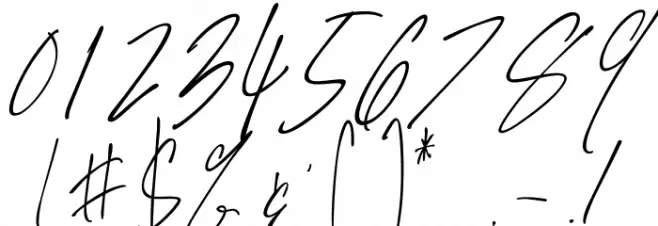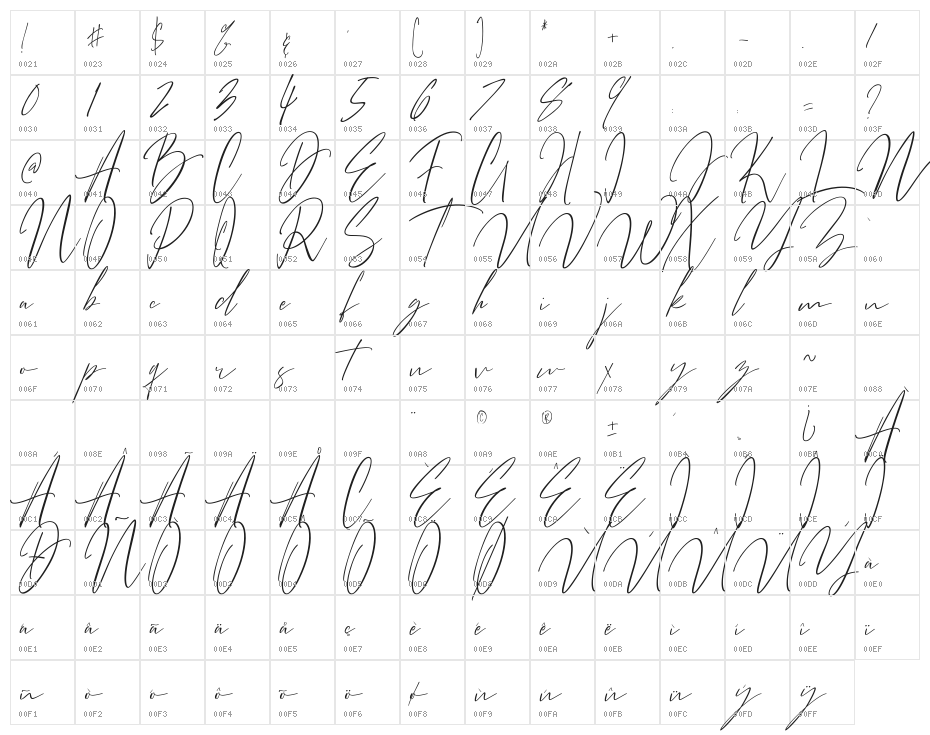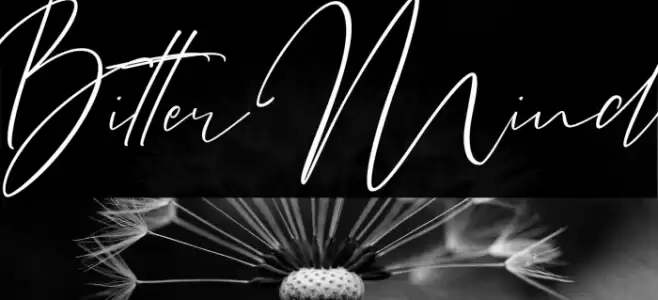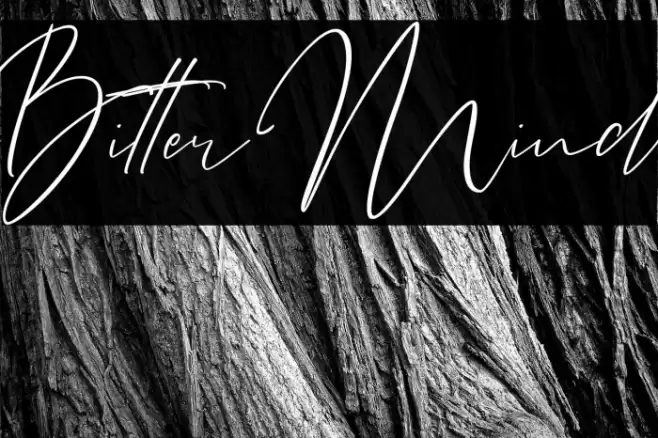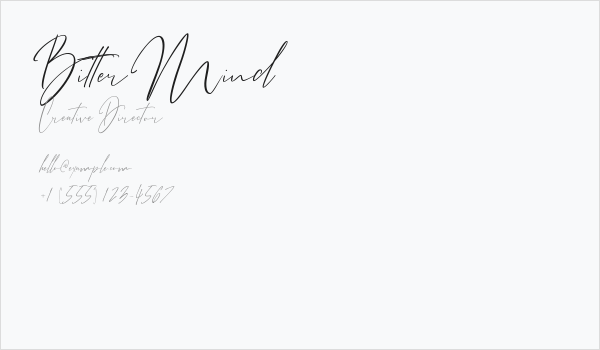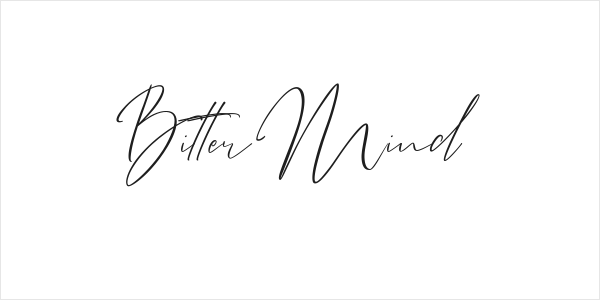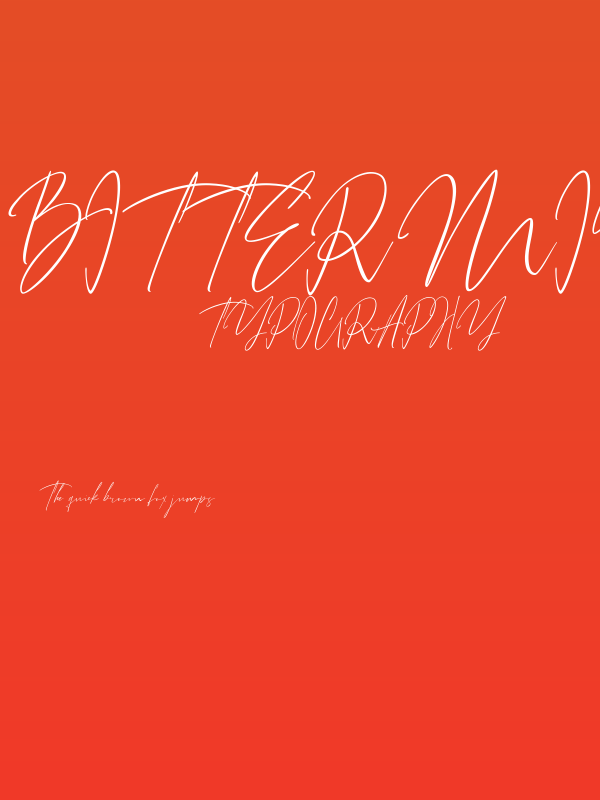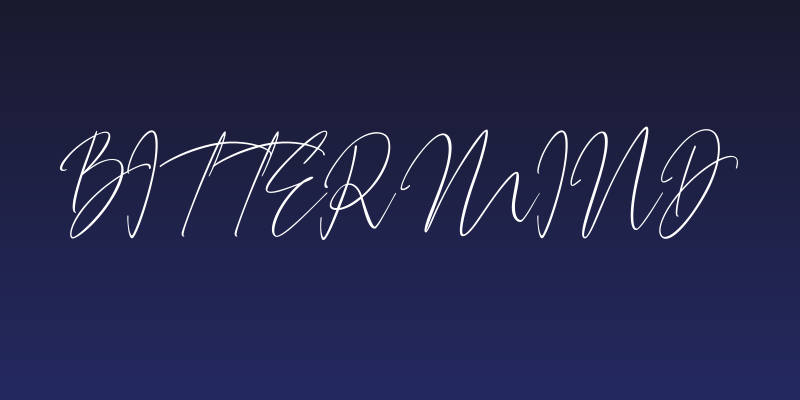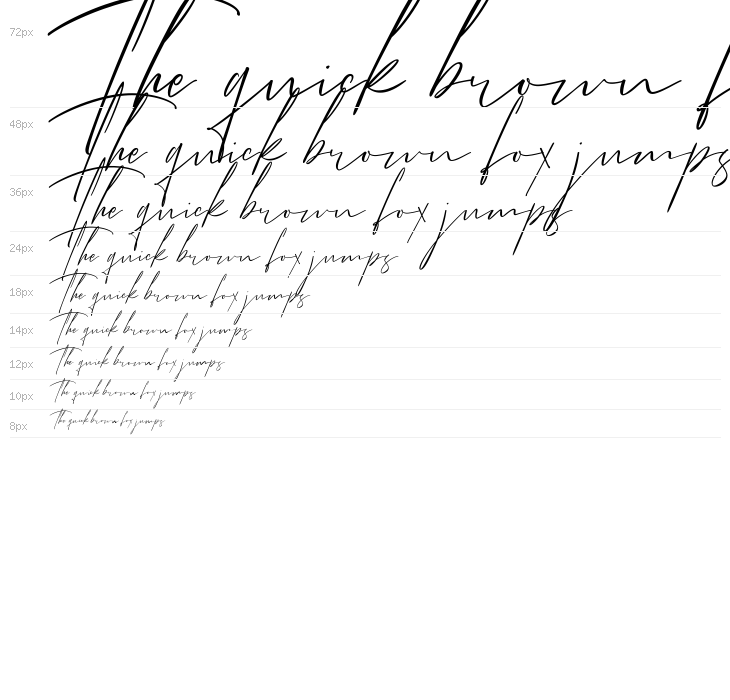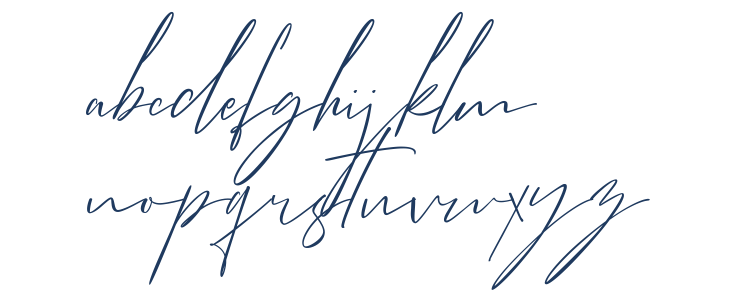
Bitter Mind Font
Bitter Mind Description
This font features an elegant and flowing script style, characterized by its cursive, handwritten appearance. The letters are connected with smooth, sweeping strokes that give it a fluid and dynamic look. The uppercase letters are tall and slender, while the lowercase letters maintain a consistent height, adding to the overall harmony of the design. The numerals and special characters are crafted with the same attention to detail, ensuring a cohesive appearance across all glyphs. The font's delicate lines and graceful curves make it suitable for projects that require a touch of sophistication and personal flair.
| Proposed Projects | Ideal for wedding invitations, greeting cards, personal branding, and elegant logos. |